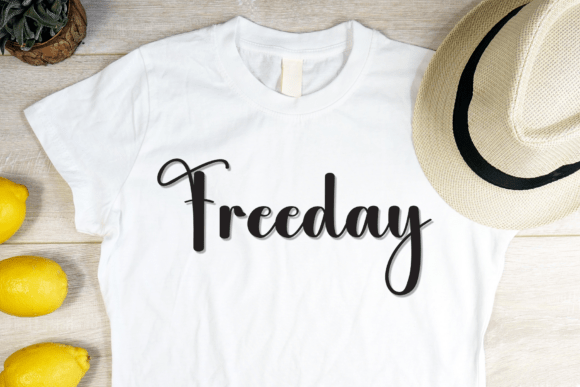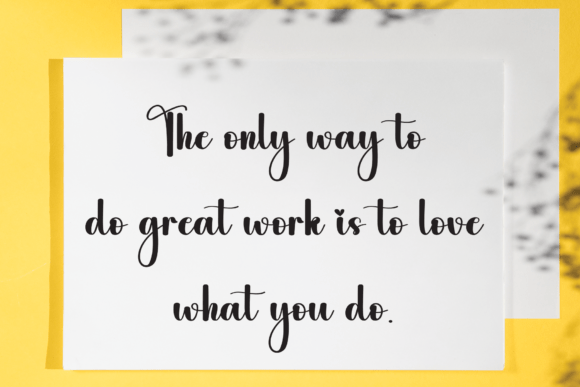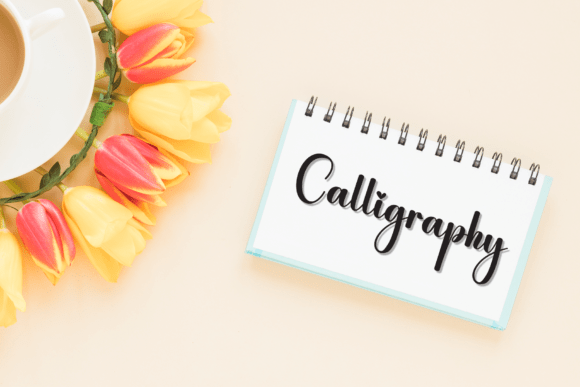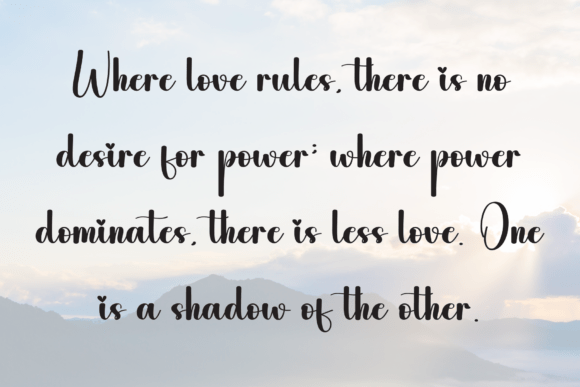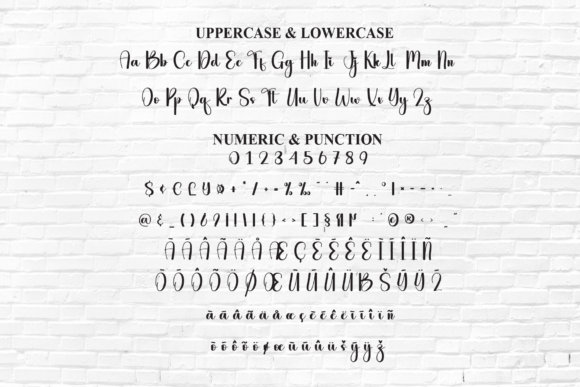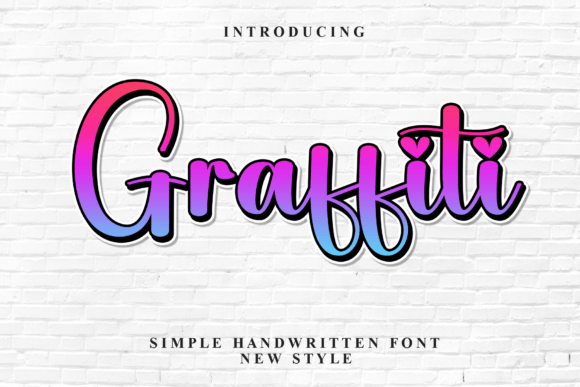
Discover the Charm of Graffiti Font: A Casual Handwritten Style for Your Designs
Are you looking for a font that can add a personal touch to your designs? Do you want to convey warmth and personality through your typography? Look no further than the Graffiti Font! This casual handwritten font is perfect for designers and crafters who want to create authentic and approachable designs that resonate with their audience.
The Characteristics of Graffiti Font
Graffiti Font is a unique and charming typeface that features smooth strokes, natural curves, and easy-flowing letterforms. Its effortless style and versatile character make it an ideal choice for a wide range of design projects, from quotes and invitations to branding and social media posts.
One of the key characteristics of Graffiti Font is its ability to capture the charm of authentic handwriting with a modern, approachable feel. The font’s smooth strokes and natural curves give it a friendly and approachable look that is perfect for designs that require a personal touch.
The Benefits of Using Graffiti Font
So, why should you use Graffiti Font in your designs? Here are just a few benefits of this amazing font:
• Readability: Graffiti Font is designed to be easy to read, making it perfect for designs that require a clear and concise message.
• Charm: The font’s unique character and effortless style make it a charming addition to any design.
• Versatility: Graffiti Font can be used for a wide range of design projects, from formal to informal, and can be paired with a variety of other fonts and design elements.
• Personality: The font’s warm and friendly personality makes it perfect for designs that require a personal touch.
Graffiti Font is a perfect choice for designers and crafters who want to add a personal touch to their designs. Whether you’re creating a logo, branding materials, or social media posts, this font is sure to make your designs stand out.
For designers, Graffiti Font offers a unique and creative way to express your brand’s personality and style. Its versatility and readability make it perfect for a wide range of design projects, from web design to print design.
For crafters, Graffiti Font is a great way to add a personal touch to your handmade projects. Whether you’re creating invitations, cards, or other paper crafts, this font is sure to add a touch of warmth and personality to your designs.
Tips for Using Graffiti Font
Here are a few tips for using Graffiti Font in your designs:
• Pair it with other fonts: Graffiti Font can be paired with a variety of other fonts and design elements to create a unique and creative look.
• Use it for headings and titles: The font’s bold and playful style makes it perfect for headings and titles.
• Add a personal touch: Use Graffiti Font to add a personal touch to your designs, such as in invitations, cards, and other paper crafts.
In conclusion, Graffiti Font is a unique and charming typeface that is perfect for designers and crafters who want to add a personal touch to their designs. Its effortless style, versatile character, and warm personality make it an ideal choice for a wide range of design projects. Whether you’re creating a logo, branding materials, or social media posts, Graffiti Font is sure to make your designs stand out.
So why not give Graffiti Font a try? With its readability, charm, and versatility, it’s sure to become a favorite in your design arsenal.